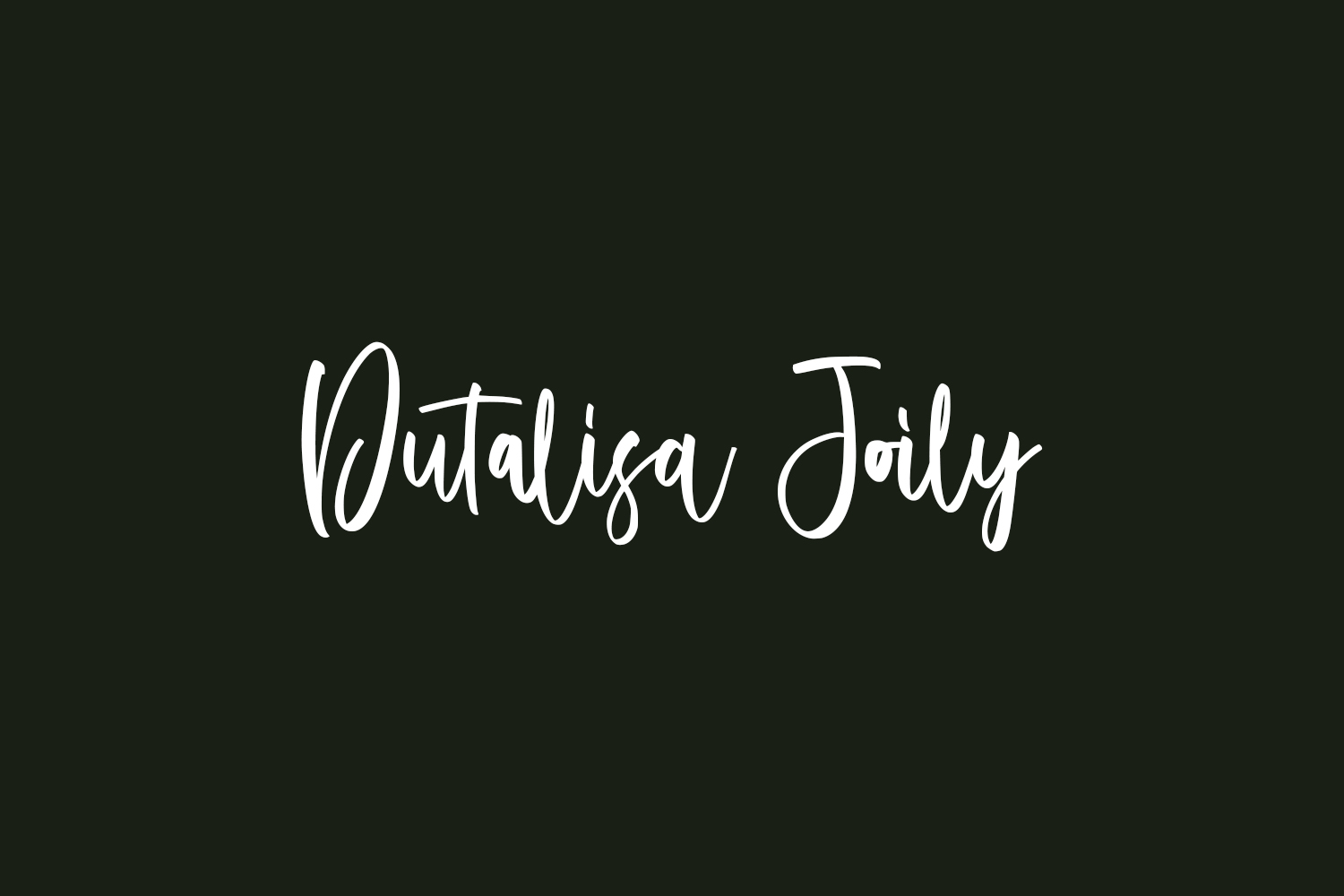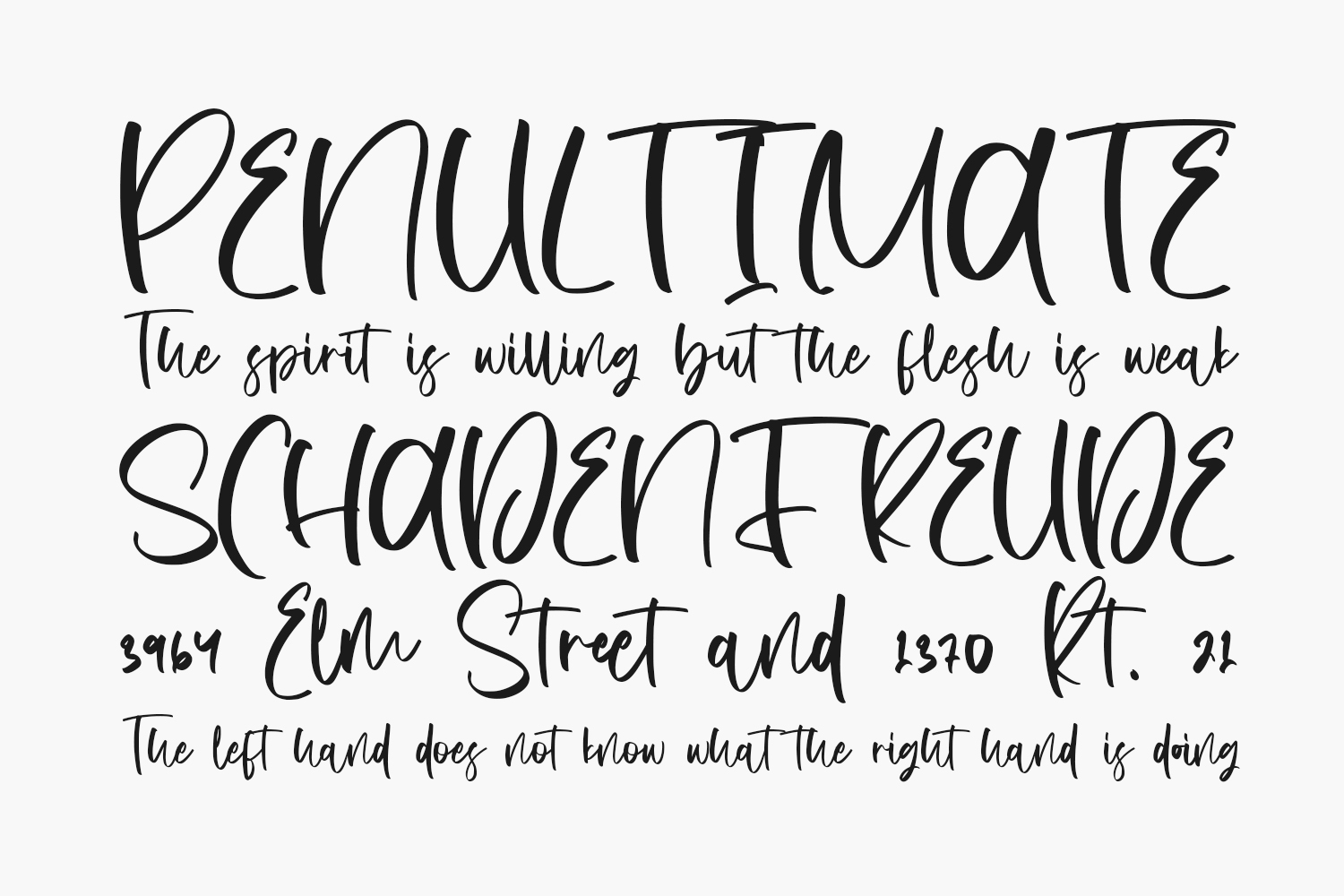
Dutalisa Joily Free Font is a beautiful and flowing handwritten font with a unique feel and a stunning impact. It will add a luxury spark to any design project that you wish to create. Dutalisa Joily Free Font was designed by StringLabs and is free for personal use only. Please purchase the full version for commercial use.